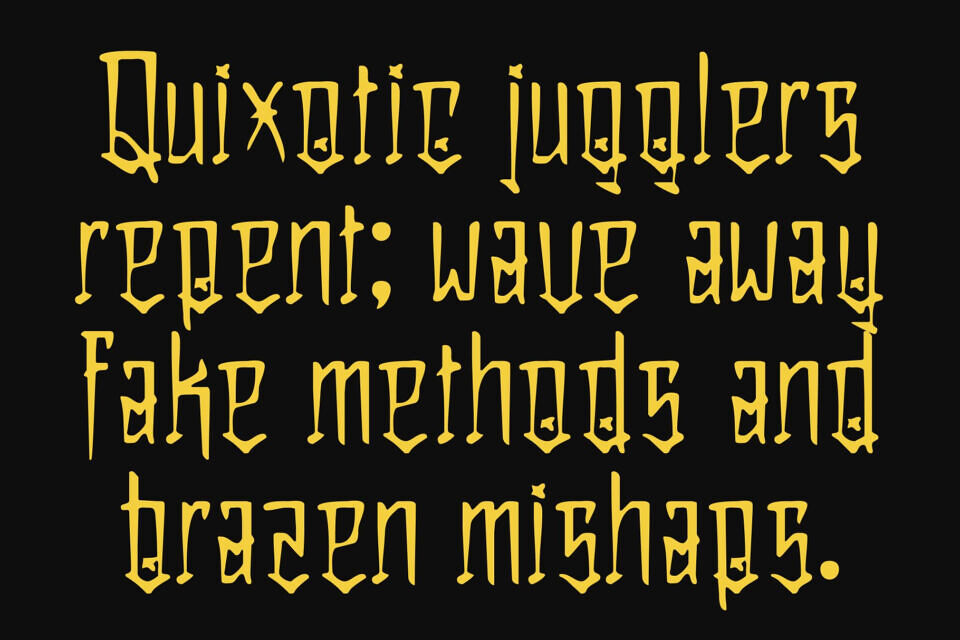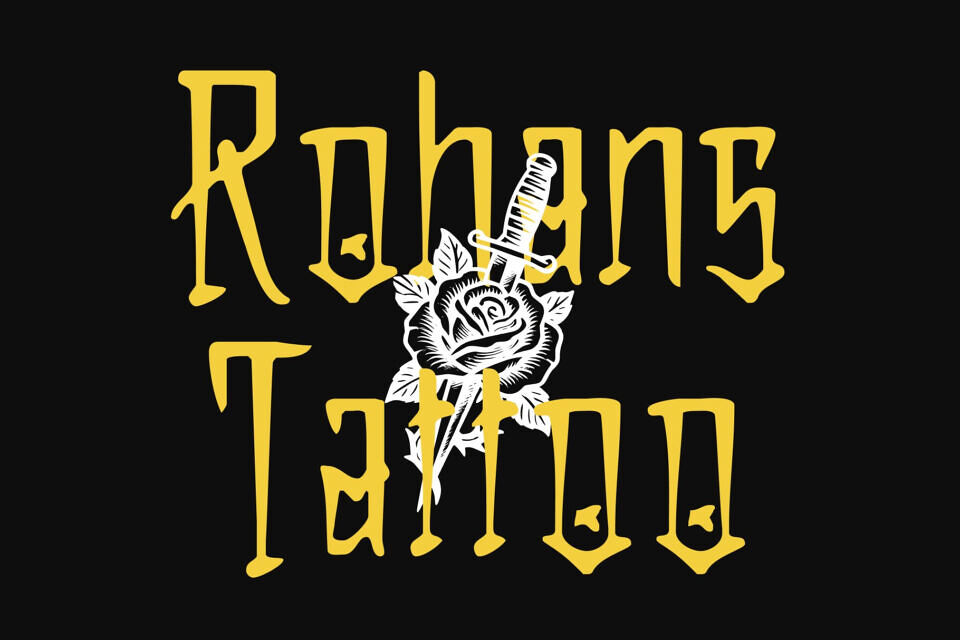
Emperor Drawn is a display font shaped by the bold spirit of Chicano graffiti culture. Its decorative strokes deliver attitude, presence, and unmistakable street-style character. Every curve and flourish is crafted to feel expressive and intentional, giving your designs a dynamic personality that instantly captures attention.
Built with a drawn handmade touch, this font carries the raw charm of lettering created directly with pen and motion. The textured edges and crafted imperfections enrich the typeface with genuine emotion, making each letter feel alive. This human crafted feel enhances authenticity, perfect for projects that want to communicate creativity, individuality, and bold artistic expression.